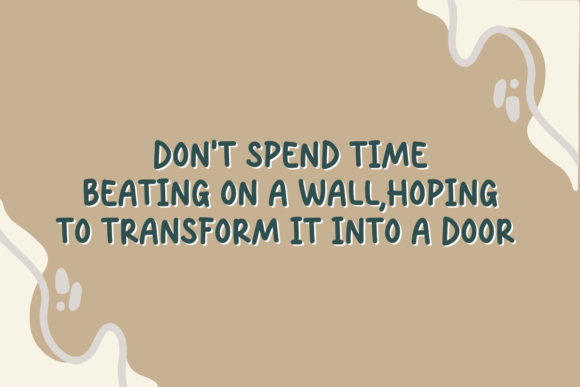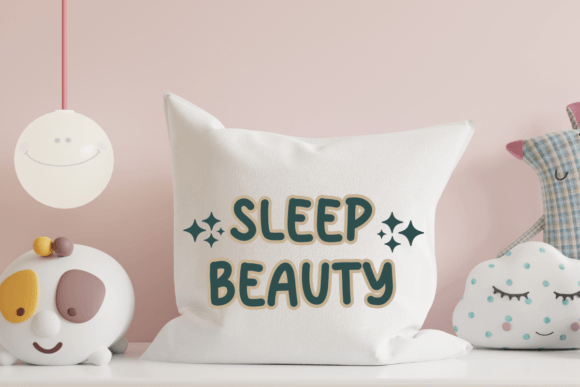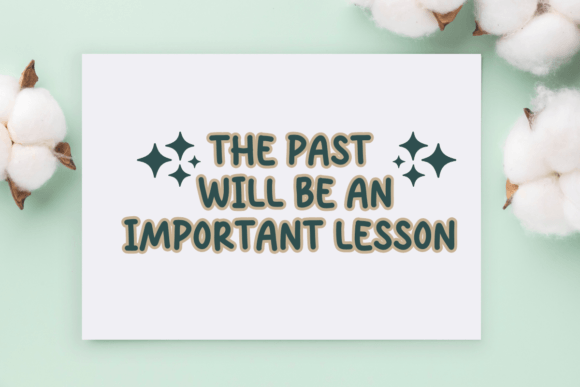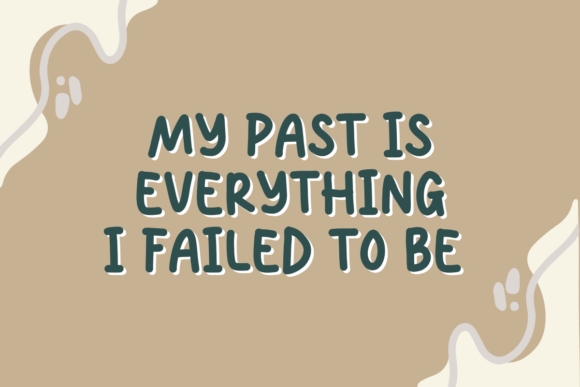
Introducing Farmhouse Flowers Font: The Perfect Addition to Your Creative Projects
Are you a designer, crafter, or DIY enthusiast looking for a font that can add a touch of charm and personality to your projects? Look no further than Farmhouse Flowers Font! This adorable sans serif font is perfect for a wide range of creative endeavors, from stickers and notes to planners, SVG quotes, t-shirts, wall art, and so much more.
What is Farmhouse Flowers Font?
Farmhouse Flowers Font is a cute and modern sans serif font that is designed to bring a touch of rustic charm to your projects. Its clean lines, simple shapes, and friendly feel make it an ideal choice for anyone looking to add a personal touch to their designs. Whether you’re creating something for personal use or for a client, this font is sure to impress.
What Can I Use Farmhouse Flowers Font For?
The possibilities are endless with Farmhouse Flowers Font! Here are just a few ideas to get you started:
- Stickers: Add a personal touch to your stickers with this charming font. Use it to create custom labels, decorations, or even motivational quotes.
- Notes and Planners: Keep your notes and planners organized and stylish with Farmhouse Flowers Font. Use it to create headings, titles, or even custom layouts.
- SVG Quotes: Create stunning SVG quotes with this font and add a touch of elegance to your designs.
- T-Shirts: Design custom t-shirts with Farmhouse Flowers Font and make a statement. Perfect for craft fairs, gifts, or personal use.
- Wall Art: Create beautiful wall art with this font and add a touch of personality to any room.
- Cricut: Use Farmhouse Flowers Font with your Cricut machine to create custom vinyl decals, iron-on designs, or paper crafts.
- Crafting: Add a personal touch to your crafts with this font. Use it to create custom embroidery patterns, sewing projects, or even paper crafts.
- Posters and Cards: Create stunning posters and cards with Farmhouse Flowers Font and make a lasting impression.
Why Choose Farmhouse Flowers Font?
So why choose Farmhouse Flowers Font over other fonts? Here are just a few reasons:
- Unique and Versatile: This font is both unique and versatile, making it perfect for a wide range of creative projects.
- Easy to Read: Farmhouse Flowers Font is easy to read, even at small sizes, making it perfect for designs that require a lot of text.
- High-Quality: This font is of high quality, with clean lines and simple shapes that will make your designs stand out.
- Cute and Charmful: Farmhouse Flowers Font has a cute and charming feel that will add a touch of personality to your designs.
Farmhouse Flowers Font is a versatile and charming font that is perfect for a wide range of creative projects. Its clean lines, simple shapes, and friendly feel make it an ideal choice for designers, crafters, and DIY enthusiasts. With its ease of use and high-quality design, Farmhouse Flowers Font is sure to become a favorite in your font library. So why wait? Download Farmhouse Flowers Font today and start creating stunning designs that will impress and delight!